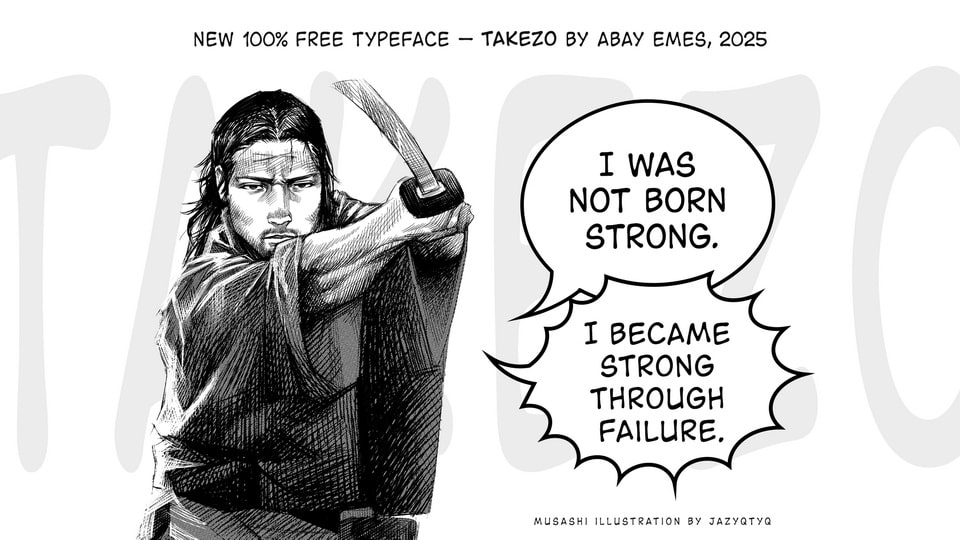
Download Takezo font, a playful comic-style typeface that captures the lively spirit of manga and graphic storytelling with its expressive letterforms and fun, energetic design.
Designer: Abay Emes